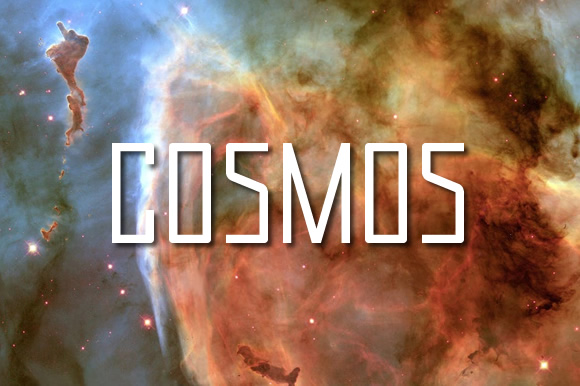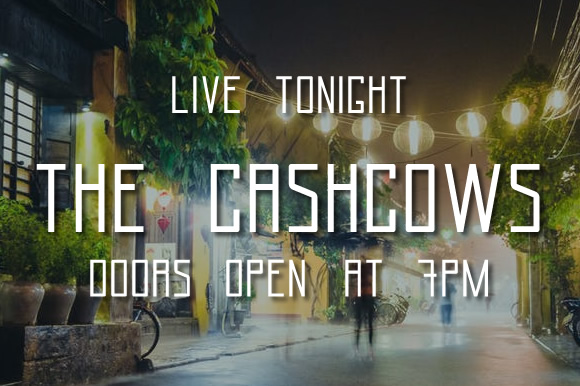
HomePersonal Use FreeCosmos Personal Use Free Cosmos FacebookTwitterPinterestWhatsApp 1 of 2 About Cosmos Font The Cosmos font is a free font created by Tydugusa. This uppercase font has clean straight lines with slightly rounded corners. DOWNLOAD NOW People also explored Yuriko Font Southwill Font Mermaid Font Hoomina Font Uniditium Font Scribbler Sunthai Font Be Yourself Font Butterly Font 200 0 TagsCosmosCosmos Font Previous articleSusannaNext articleEric”s LEAVE A REPLY Cancel reply Comment: Please enter your comment! Name:* Please enter your name here Email:* You have entered an incorrect email address! Please enter your email address here Website: Save my name, email, and website in this browser for the next time I comment. Personal Use Free Evensong Hollow Personal Use Free Read more about this font Bintang Noela Personal Use Free Read more about this font Daisy Script Personal Use Free Read more about this font Hashira Mt Personal Use Free Read more about this font BLOG Free Fonts Risk: Why Free Fonts Can Be Dangerous for Designers Free Fonts Risk: Why Free Fonts Can Be Dangerous for Designers Using free fonts is a common practice in web and graphic design. However, the... Using Fonts in Digital Marketing: Tips to Strengthen Your Brand Identity Best Fonts for T-Shirt Design – Top 2025 Picks Best Fonts for YouTube Videos: Make Your Thumbnails Stand Out